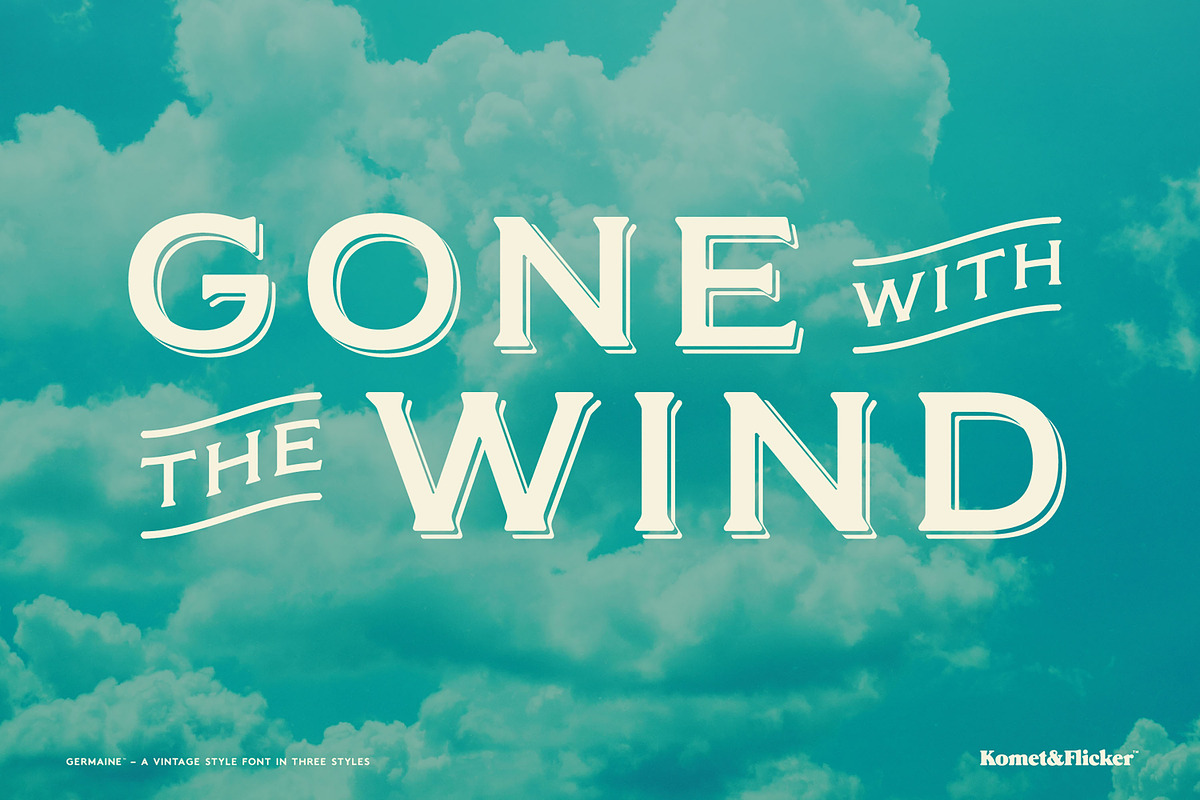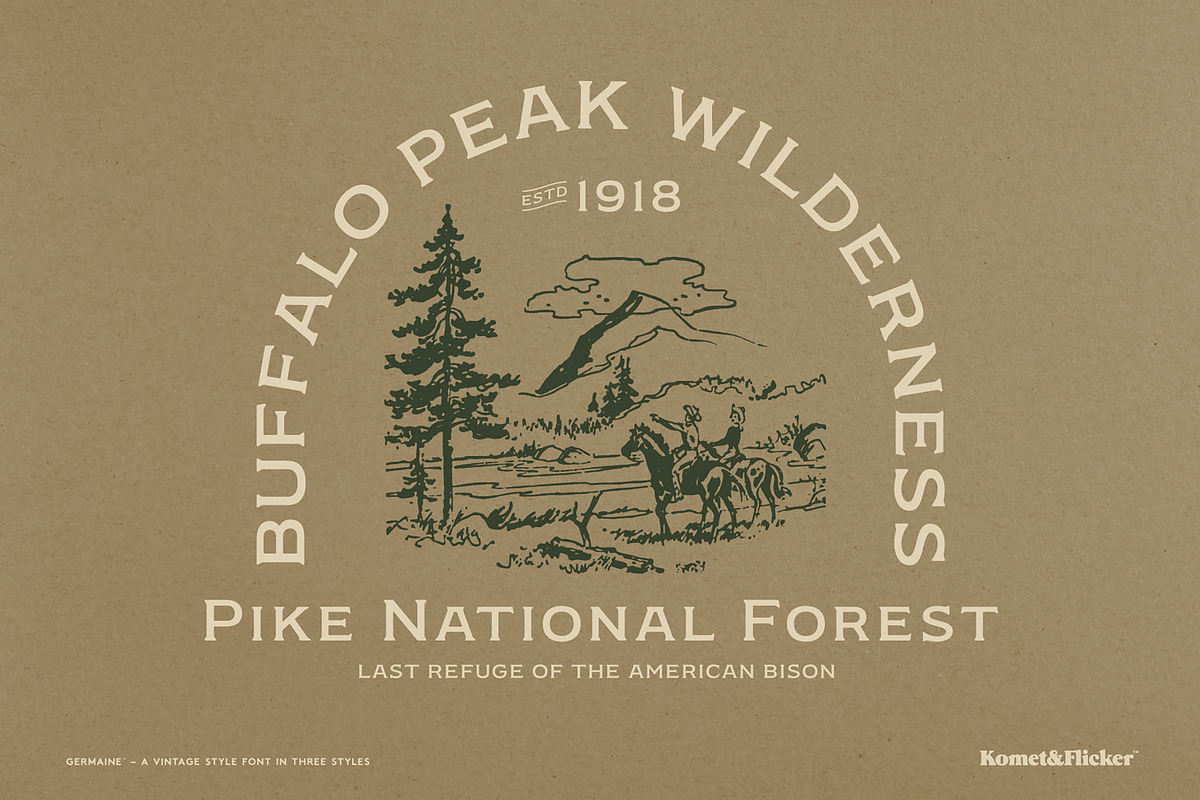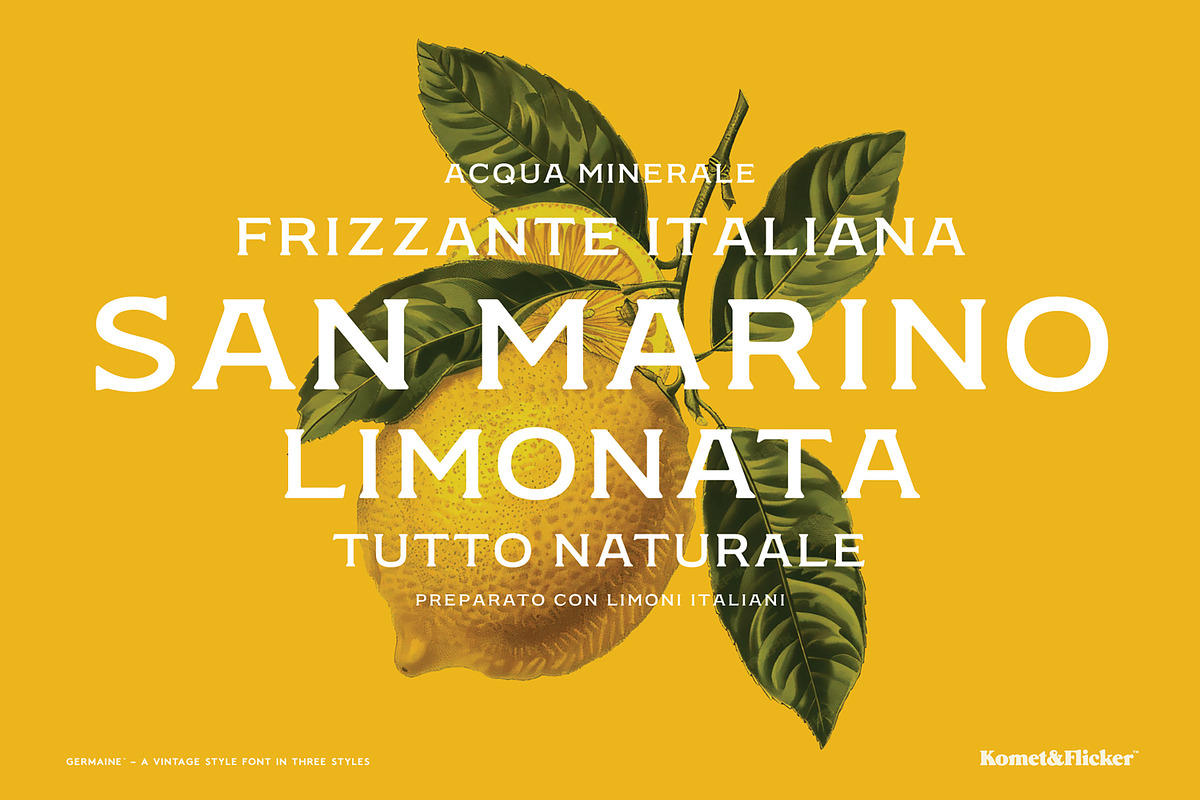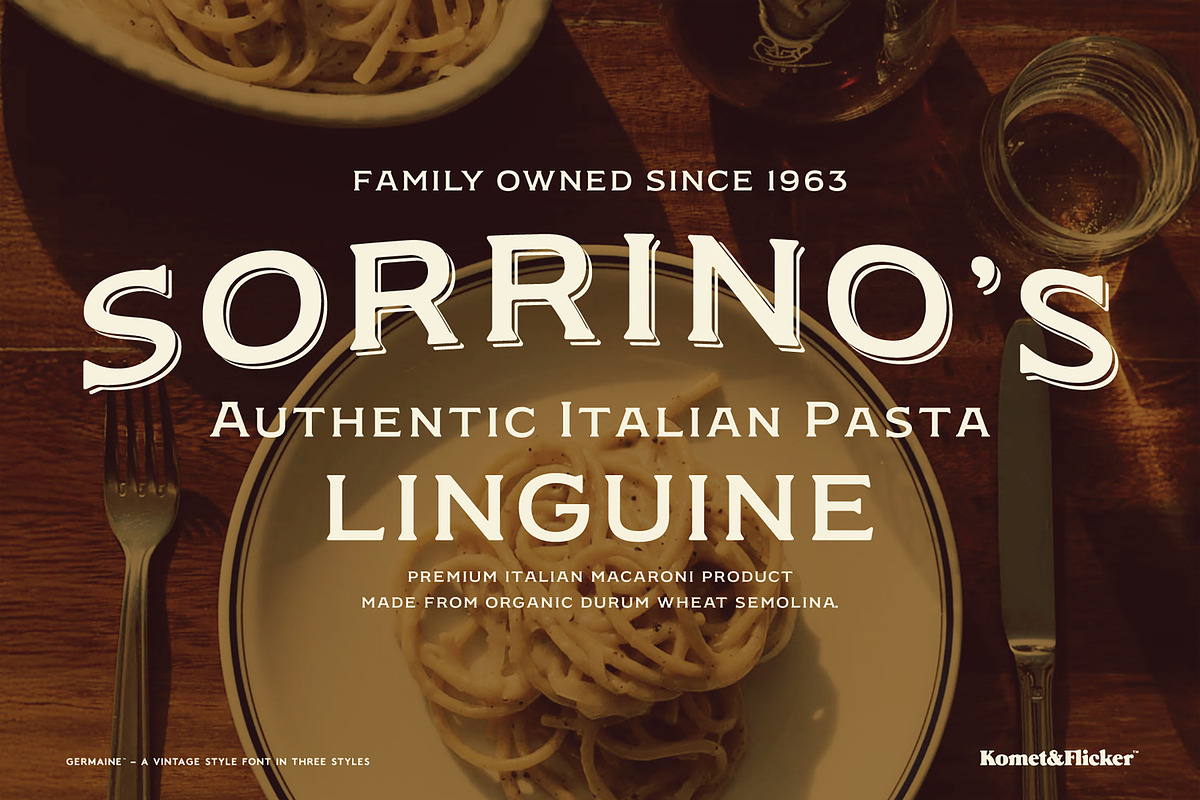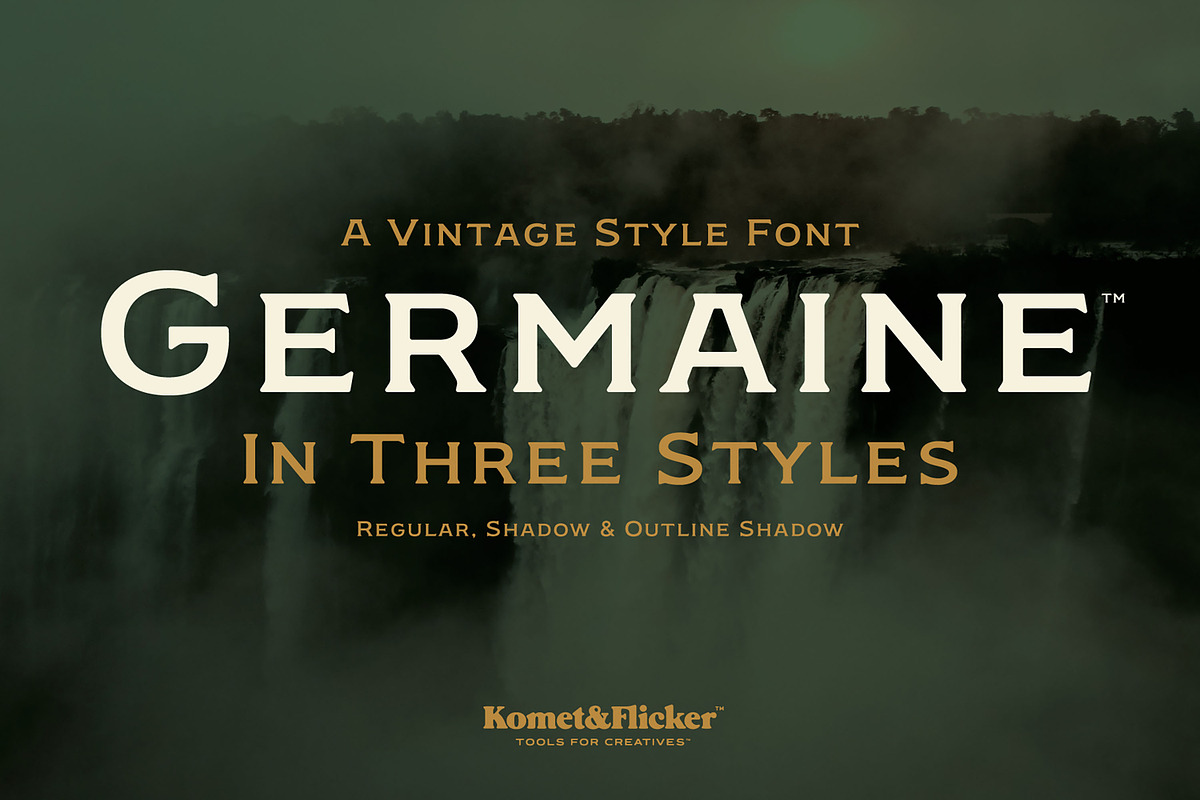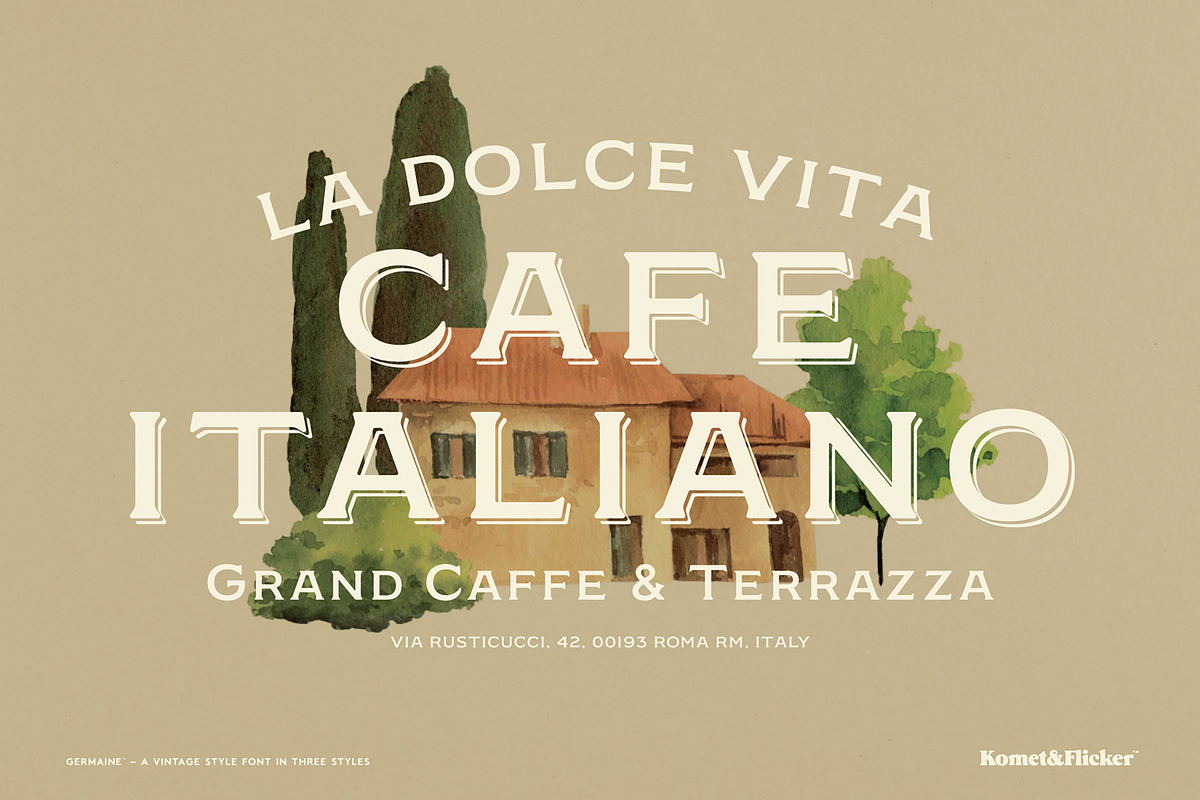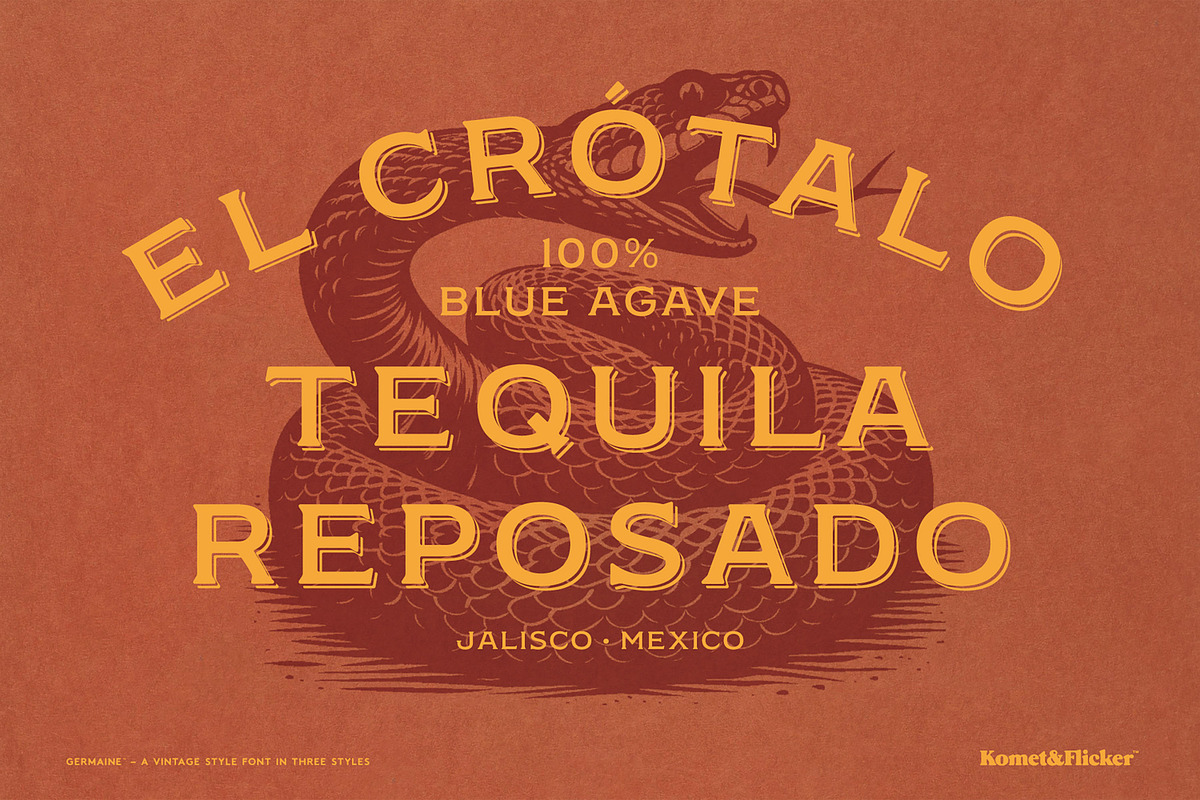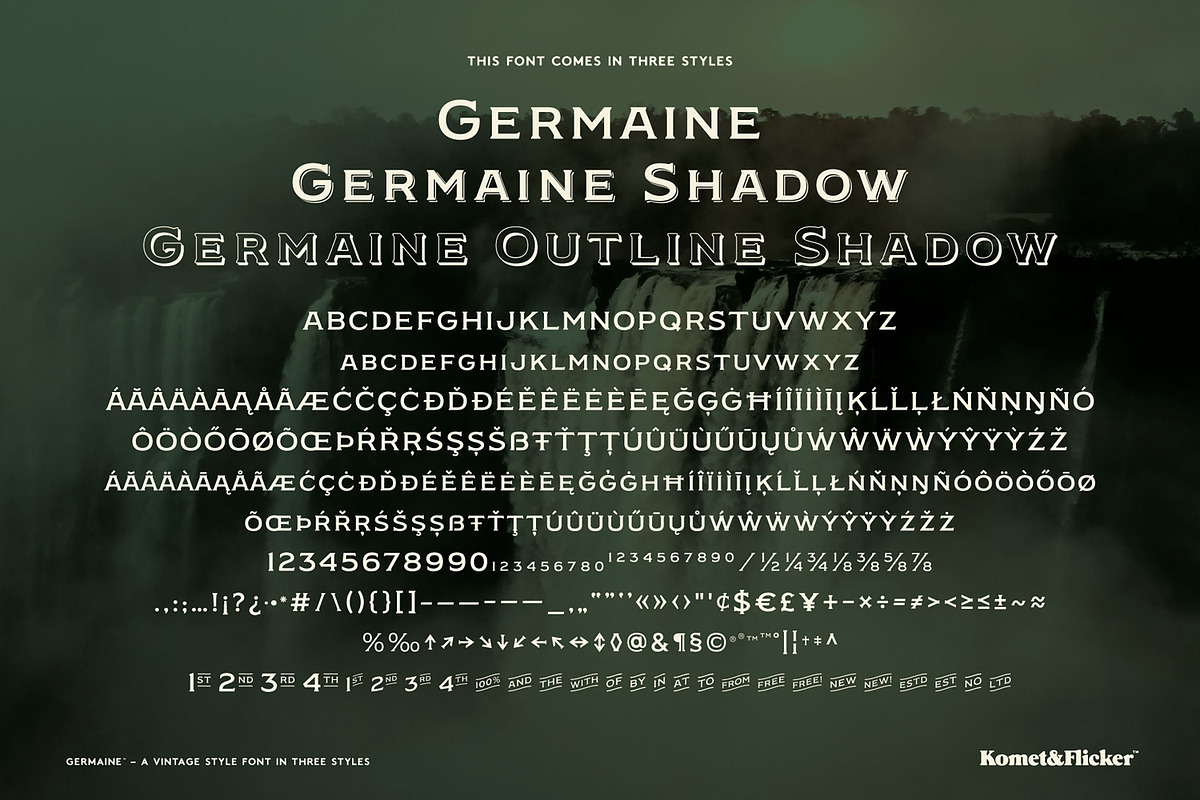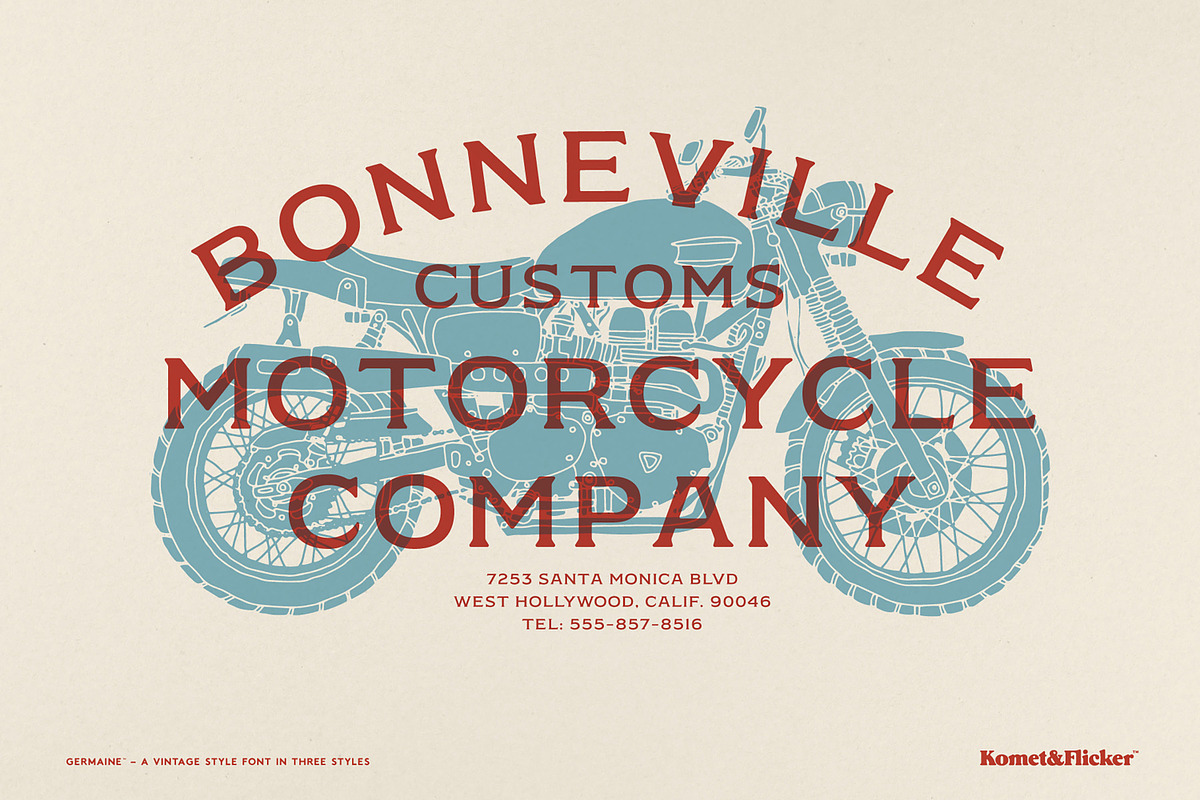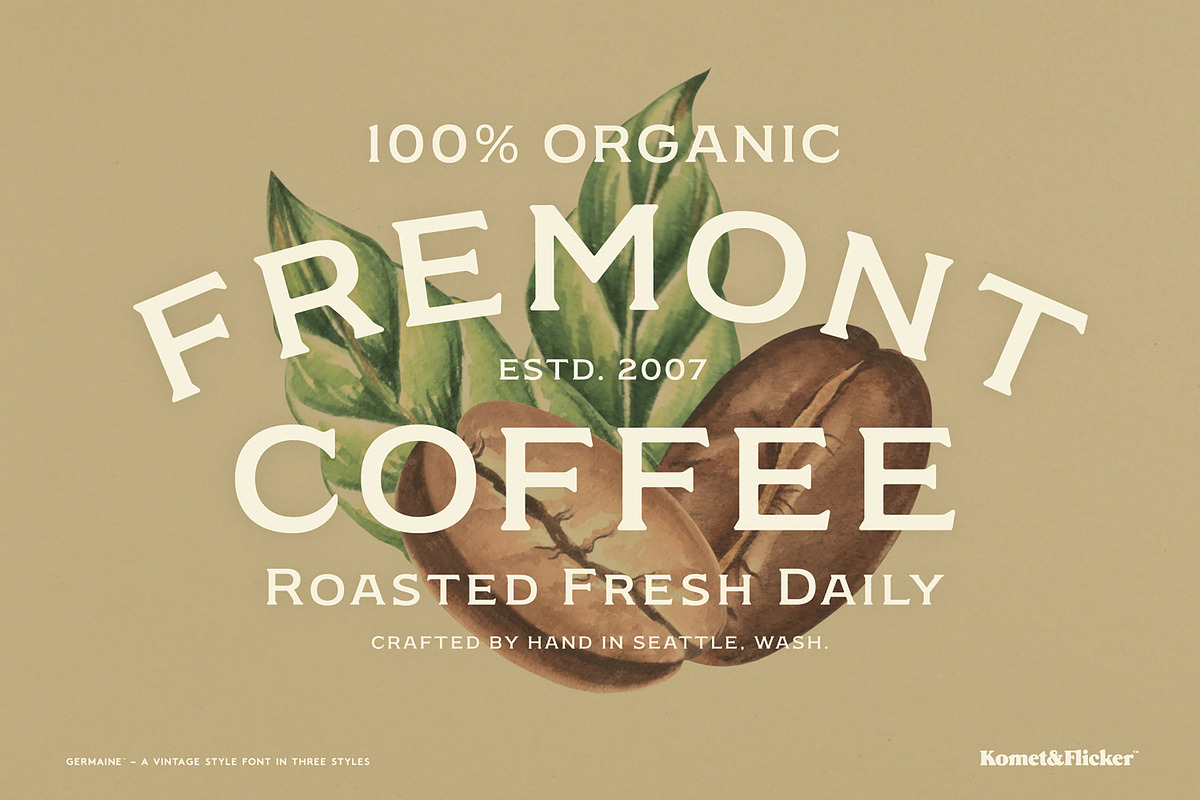
Germaine - A Vintage Style Font
Elevate your designs with Germaine, a stunning vintage-style small caps font family that embodies classic charm and modern versatility. Germaine is now available in three distinct styles: Regular, Shadow, and Outline Shadow, allowing you to create depth and character in your typography.
Perfect for logos, packaging, branding, menus, advertising, and posters, Germaine is designed for optimal legibility across a wide range of point sizes. And with a comprehensive character set that supports Western, Central, and South Eastern European languages, Germaine ensures your message reaches a diverse audience without compromising on style.
To elevate your creative work even further, Germaine includes a special set of 31 custom connecting words. These additions enhance the flow of your typography, ensuring that your designs feel cohesive and polished.
Bring a touch of nostalgia to your work with Germaine, where vintage elegance meets contemporary usability.
THIS FONT COMES IN THREE STYLES
Germaine Regular
Germaine Shadow Regular
Germaine Outline Shadow Regular
THIS FONT INCLUDES
Full A-Z uppercase and small caps basic latin characters
Western, Central, and South Eastern European glyphs
Numbers, punctuation, and select symbols
Set of 31 custom connecting word glyphs